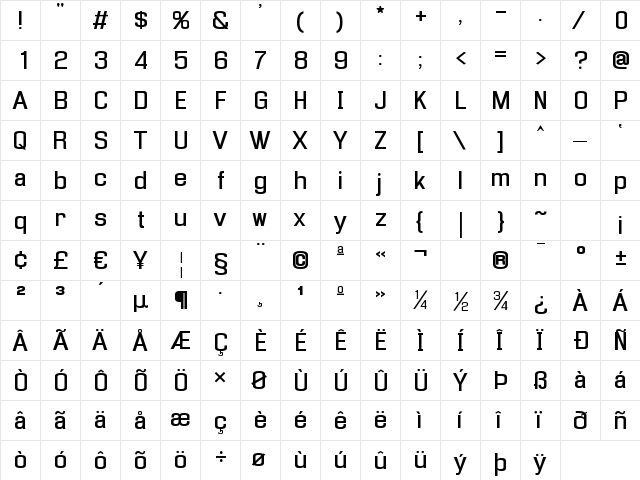
Enigmatic Unicod Regula
Design Context for Enigmatic Unicod Typeface
Enigmatic Unicod is a composed and adaptable typeface that performs quietly and consistently across a wide range of design contexts.
Pro Tip: Use Enigmatic Unicod in both headline and body roles to test its range before committing to a single application.